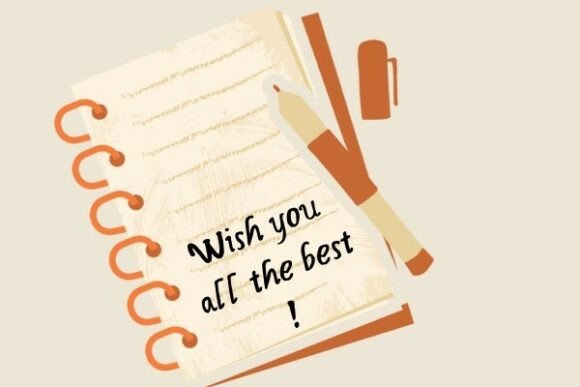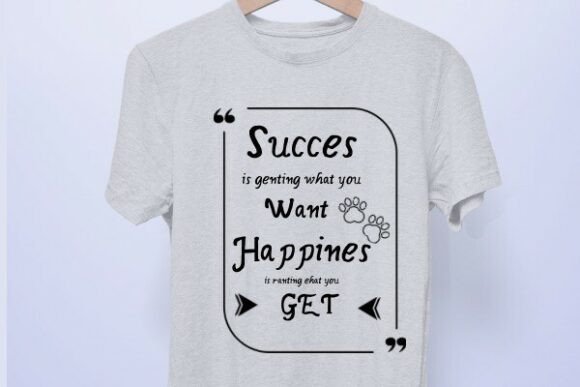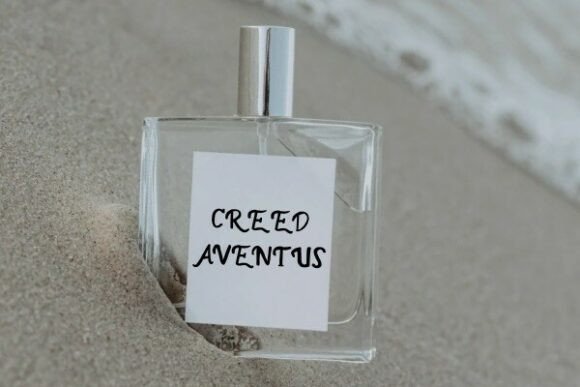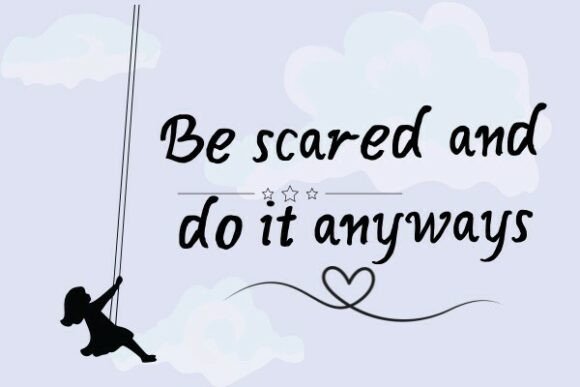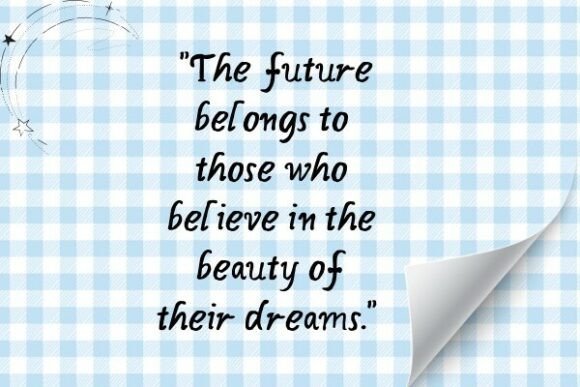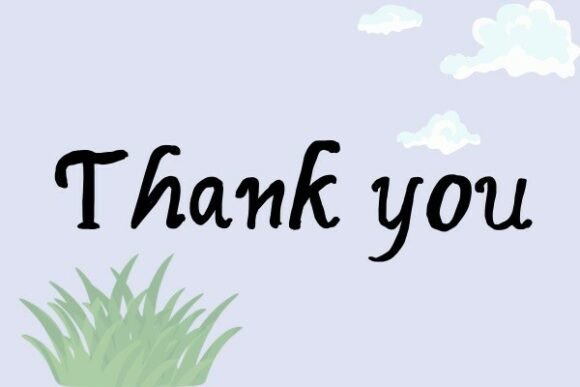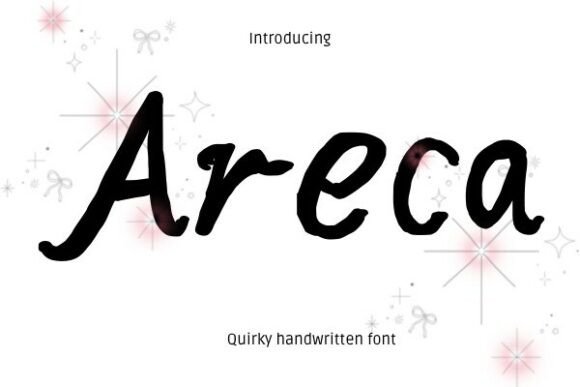
Introducing Areca Font: The Epitome of Elegant Natural Handwriting
Welcome to Areca, a beautifully crafted handwritten font that embodies the essence of natural elegance. With its breezy and carefree style, Areca is the perfect choice for designers and crafters looking to add a touch of sophistication and charm to their projects. Whether you’re creating greeting cards, t-shirt prints, store names, or mock-ups, Areca font is sure to elevate your designs to new heights.
The Characteristics of Areca Font
Areca font boasts a unique and exquisite style that sets it apart from other handwritten fonts. Its elegant and natural appearance makes it an excellent fit for a wide range of design projects. The font’s breezy and carefree style gives it a relaxed and approachable feel, making it perfect for designs that require a personal touch.
Uses of Areca Font
Areca font is incredibly versatile and can be used for a variety of design projects, including:
- Greeting Cards: Add a personal touch to your greeting cards with Areca font. Its elegant and natural style makes it perfect for creating beautiful and heartfelt messages.
- T-Shirt Prints: Create stunning t-shirt designs with Areca font. Its carefree and breezy style makes it an excellent choice for designs that require a relaxed and casual look.
- Store Names: Give your store a unique and elegant identity with Areca font. Its natural and sophisticated style makes it perfect for creating eye-catching store names and logos.
- Mock-Ups: Enhance your mock-ups with the authentic appeal of Areca font. Its elegant and natural style makes it an excellent choice for creating realistic and visually appealing designs.
Why Choose Areca Font?
So, why choose Areca font for your design projects? Here are just a few reasons:
- Unique Style: Areca font boasts a unique and elegant style that sets it apart from other handwritten fonts.
- Versatility: Areca font is incredibly versatile and can be used for a wide range of design projects.
- Elegant and Natural: Areca font’s elegant and natural style makes it perfect for designs that require a sophisticated and charming look.
- Easy to Read: Areca font is easy to read and understand, making it perfect for designs that require clear and concise communication.
Tips for Using Areca Font
Here are a few tips for using Areca font in your design projects:
- Pair with Other Fonts: Areca font pairs well with other fonts, so don’t be afraid to experiment with different font combinations.
- Use for Headings and Titles: Areca font is perfect for headings and titles, so use it to add a touch of elegance and sophistication to your designs.
- Experiment with Colors: Areca font looks great in a variety of colors, so experiment with different colors to find the perfect look for your design.
In conclusion, Areca font is a beautifully crafted handwritten font that embodies the essence of natural elegance. With its breezy and carefree style, Areca is the perfect choice for designers and crafters looking to add a touch of sophistication and charm to their projects. Whether you’re creating greeting cards, t-shirt prints, store names, or mock-ups, Areca font is sure to elevate your designs to new heights. So, why wait? Unleash your creativity and enhance your projects with the authentic appeal of Areca – the perfect blend of style and natural charm.